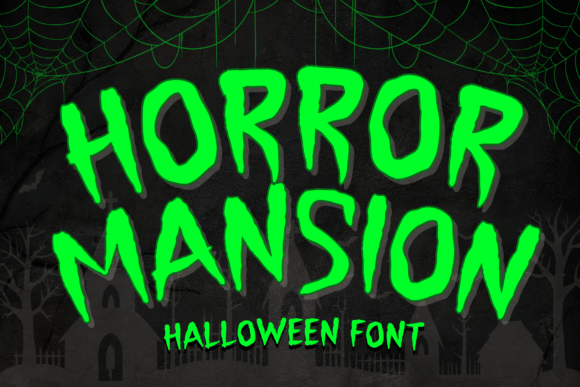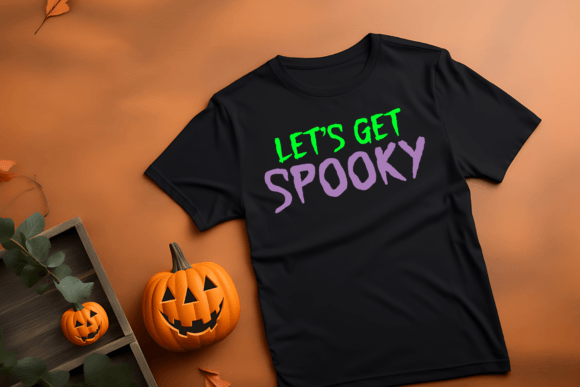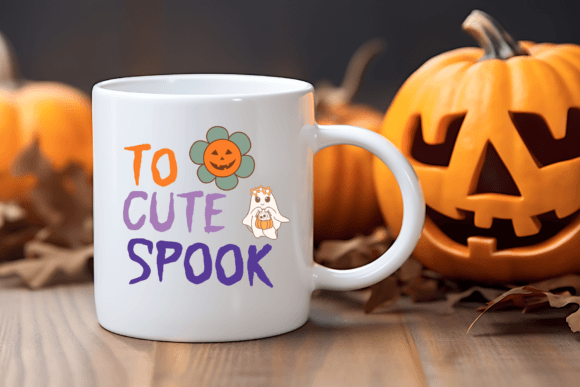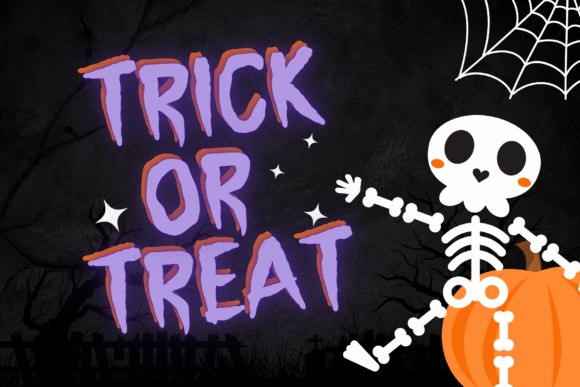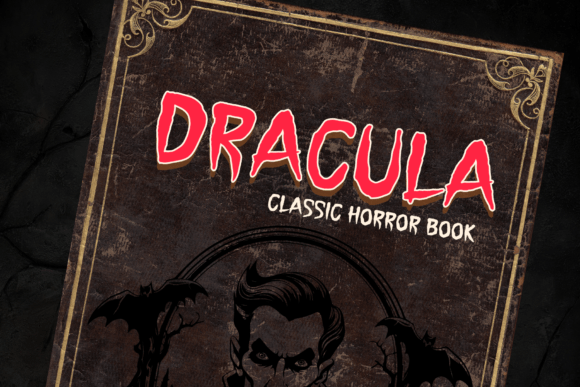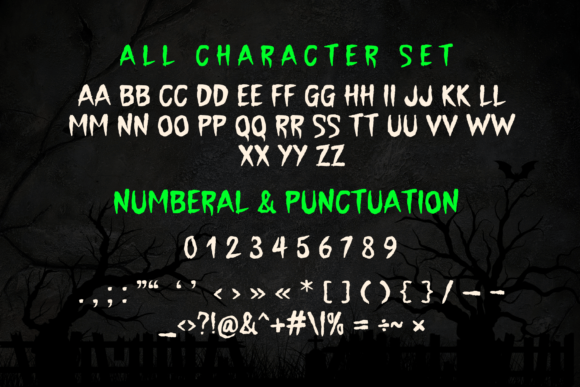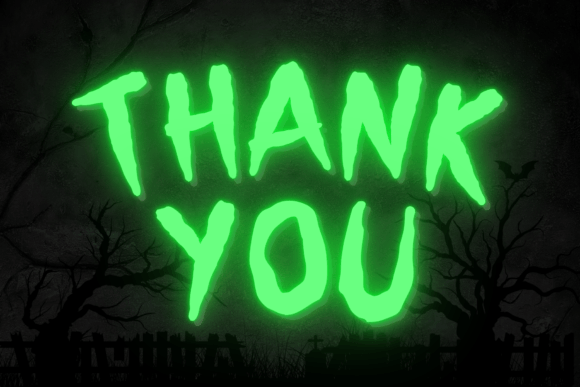
The Spooky Charm of Horror Mansion Font
As a designer, there’s nothing quite like the thrill of brainstorming ideas for a new project. It’s that moment of pure creativity when the possibilities seem endless and anything feels possible. You’ve got your favorite design tools at the ready, and a spark of inspiration strikes – perhaps it’s a festive Halloween theme or a spooky atmosphere that needs to be captured. Whatever the concept, the perfect font can make all the difference.
Enter the Horror Mansion Font, a delightfully spooky and playful font that’s perfect for adding a touch of Halloween charm to your designs. This versatile font is ideal for a wide range of projects, from blog posts and logos to invitations and decorations. Its authenticity and whimsy make it a valuable addition to any designer’s toolkit.
Horror Mansion Font Key Features
- Font Style: Horror Mansion is a unique, horror-themed font with a distressed, spooky aesthetic.
- Character Count: The font includes a wide range of characters, including uppercase and lowercase letters, numbers, and special symbols.
- Unique Characteristics: The font features a distressed, hand-drawn look with subtle texture and imperfections, adding to its spooky atmosphere.
Horror Mansion Font Review
At first glance, the Horror Mansion Font seems like the perfect addition to any spooky-themed project. The unique, hand-drawn style and intricate details ✨ really bring a sense of eeriness to any text.
One of the standout features of this font is its versatility. It can be used for a wide range of horror-themed projects, from haunted house invitations to creepy short stories. The font is also highly customizable, making it easy to adjust the size, color, and style to fit your specific needs.
- Unique, hand-drawn style ✨
- Intricate details and texture
- Versatile and suitable for a wide range of horror-themed projects
Limitsations:
- Some letters may be difficult to read at small sizes ⚠️
- Not suitable for projects that require a clean, modern look
- May be too ornate for some designs
Overall, the Horror Mansion Font is a great addition to any designer’s toolkit, but it’s not without its limitations. If you’re looking for a unique and spooky font for your next project, this one is definitely worth considering.
Tips for Getting the Most Out of Horror Mansion Font
Use Horror Mansion Font to create spooky and eerie designs for Halloween-themed projects, haunted houses, or supernatural events.
Use the font in bold or italic styles to add emphasis to your text.
Combine Horror Mansion Font with other spooky graphics, such as cobwebs, skeletons, or jack-o-lanterns, to create a cohesive and frightening design.
Horror Mansion Font is ideal for use in:
– Halloween invitations and party decorations
– Haunted house signs and advertisements
– Supernatural-themed posters and flyers
– Spooky website headers and social media graphics